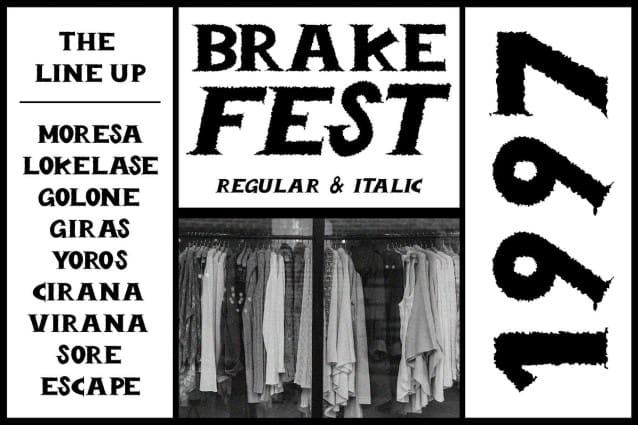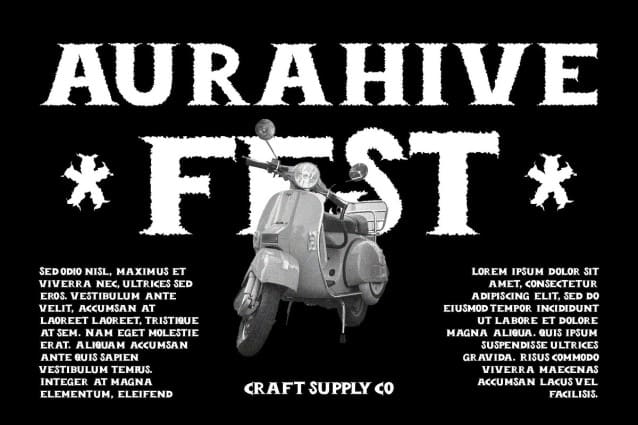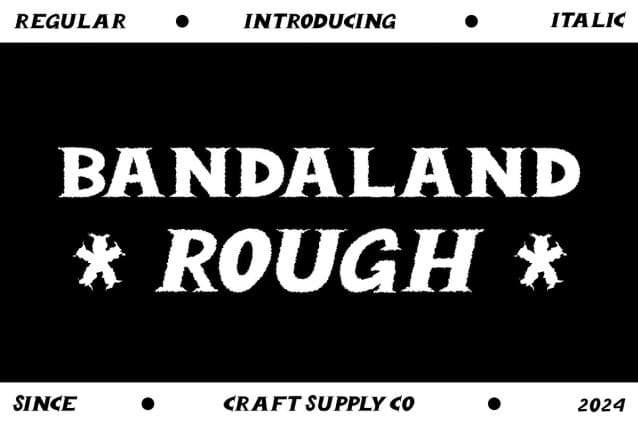
Bandaland Rough Font
Bandaland Rough Font: Bold and Eye-Catching Display Font. Striking Serif Design Bandaland Rough features a striking serif design that commands attention with its bold presence. Each character is meticulously crafted to captivate the viewer’s gaze.
Bold and Attention-Grabbing With its bold weight and rugged rough effect, This font ensures your message is impossible to miss. It’s the perfect choice for any display project that demands instant attention.
Rough Texture for Added Impact The rough texture adds depth and character to This font, enhancing its visual impact. This rugged aesthetic gives your designs a unique and memorable edge.
Perfect for Display Needs Tailored specifically for display purposes, This font excels in a variety of applications, from headlines and banners to posters and packaging. Its bold and eye-catching demeanor ensures maximum impact in any context.
Make Your Message Stand Out This font is the ultimate solution for designers seeking a bold and attention-grabbing display font. With its striking serif design, rough texture, and bold weight, it ensures your message leaves a lasting impression on your audience. Elevate your designs with This font and make your message stand out from the crowd.